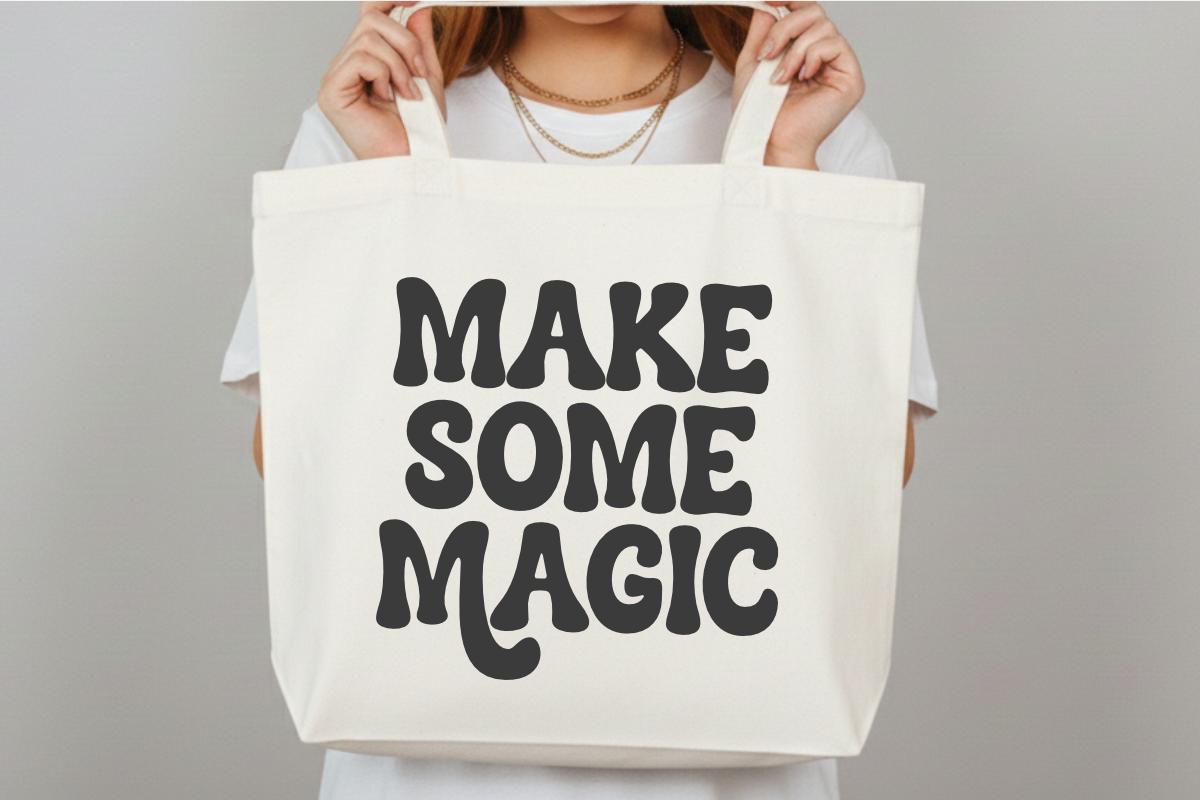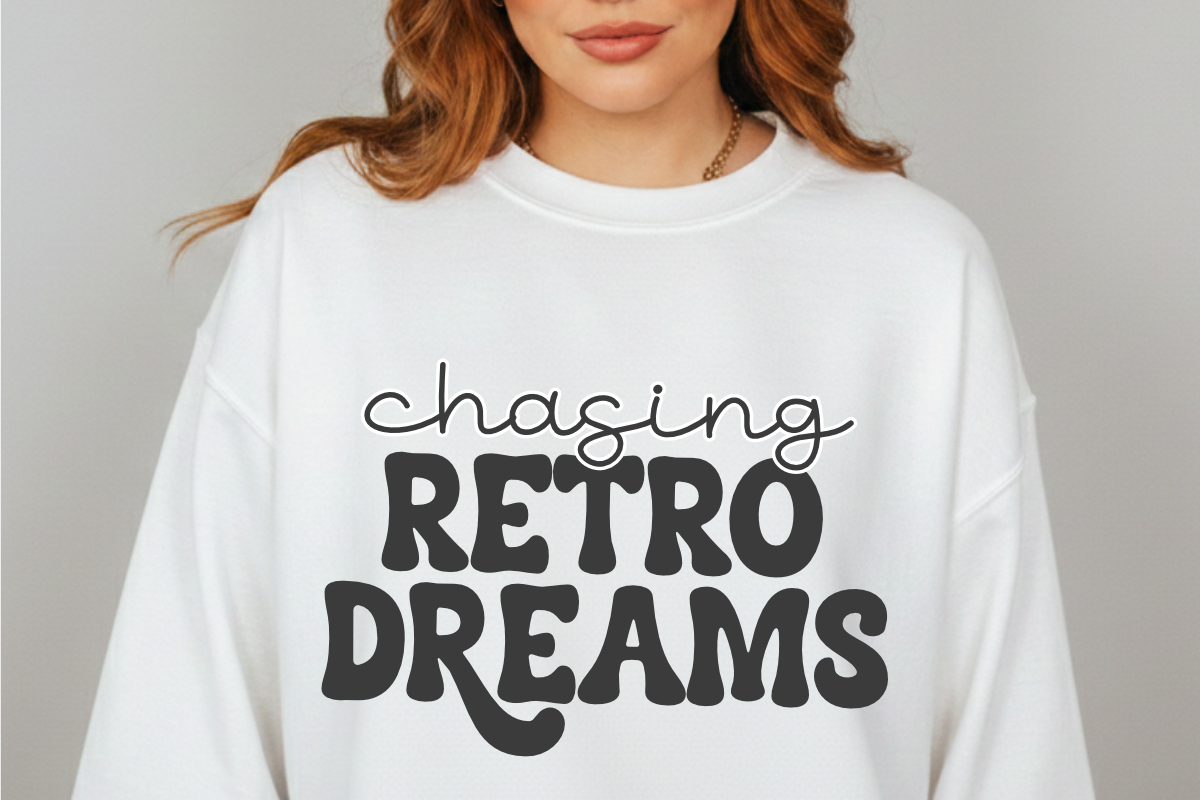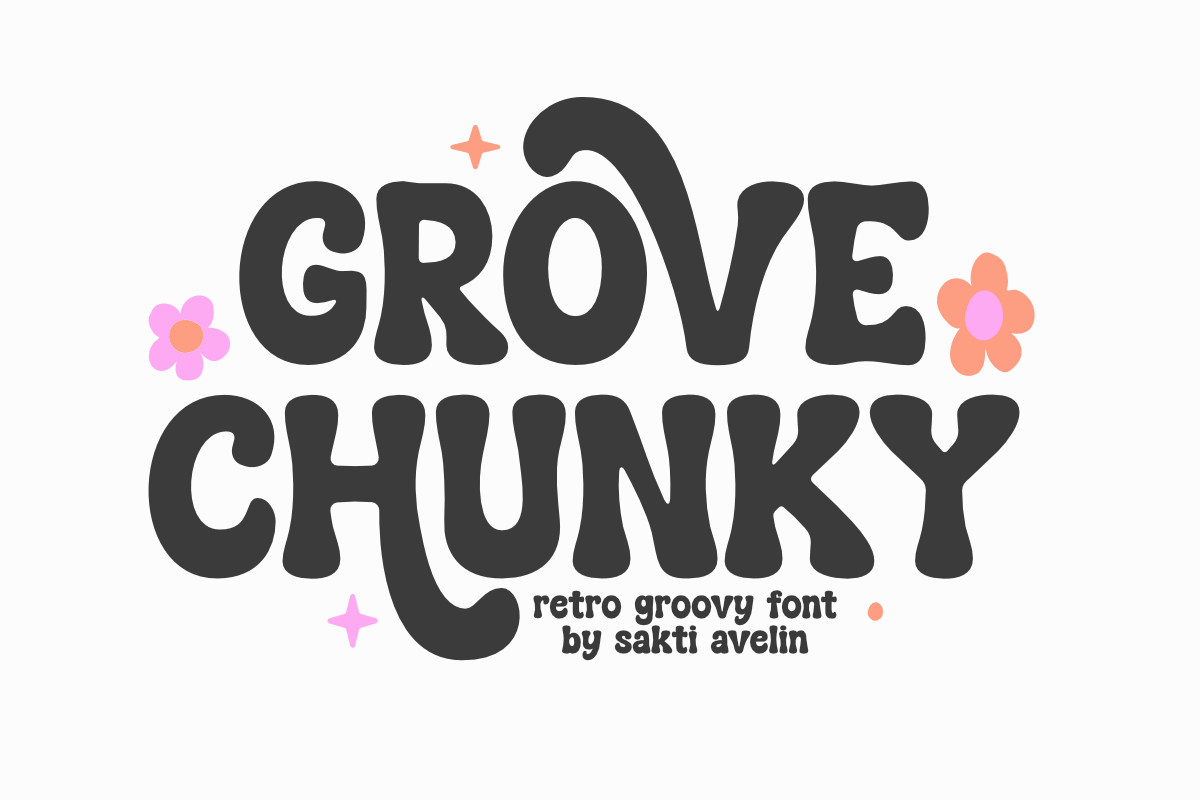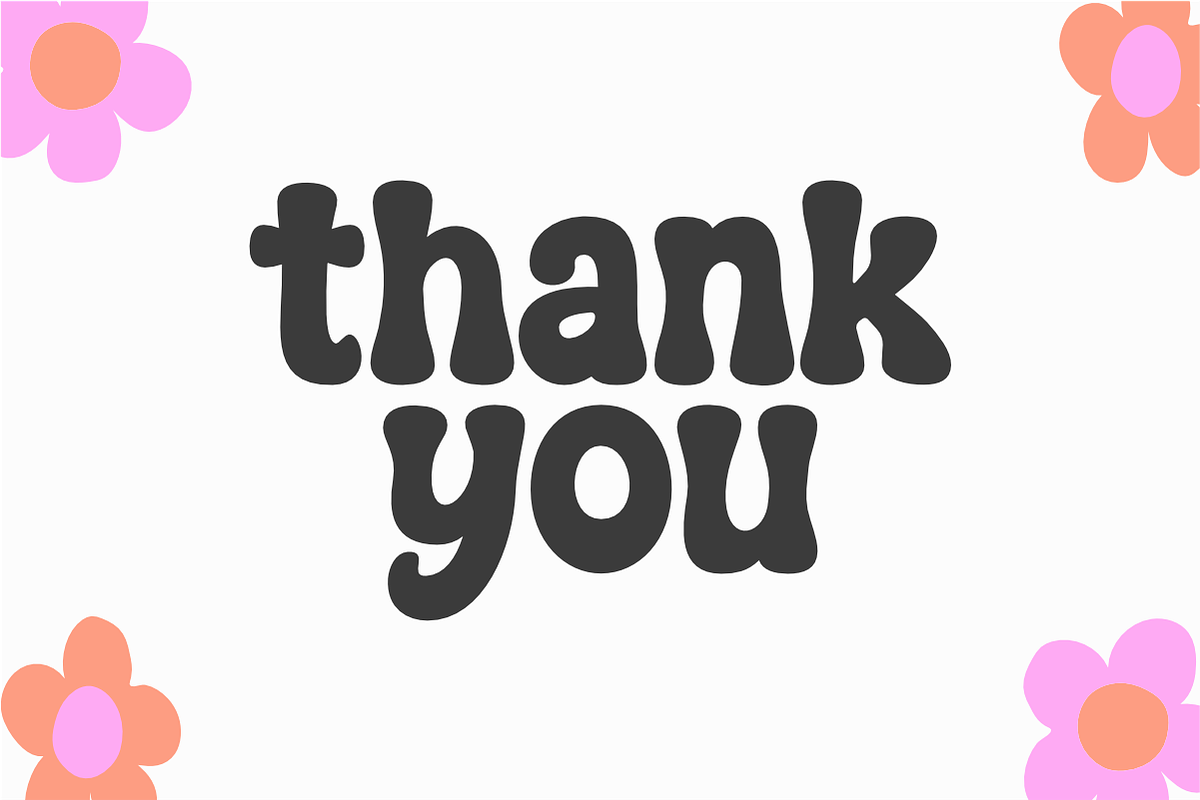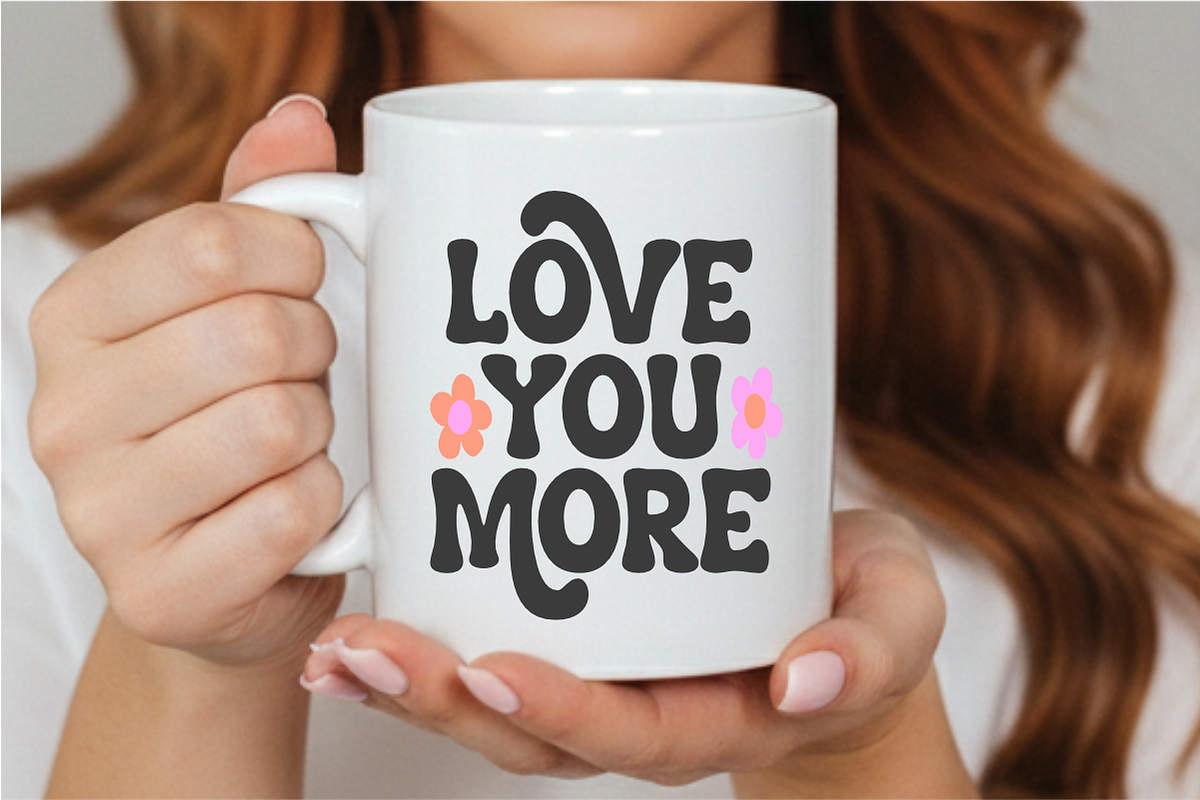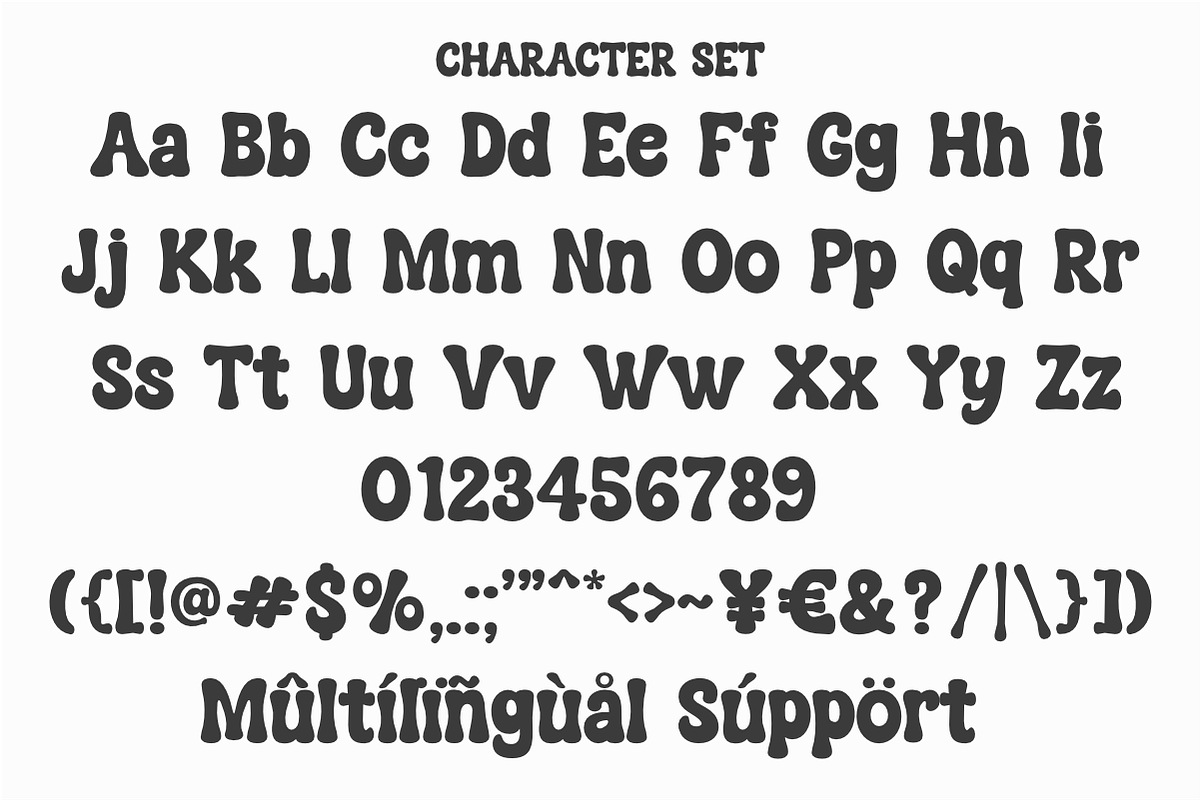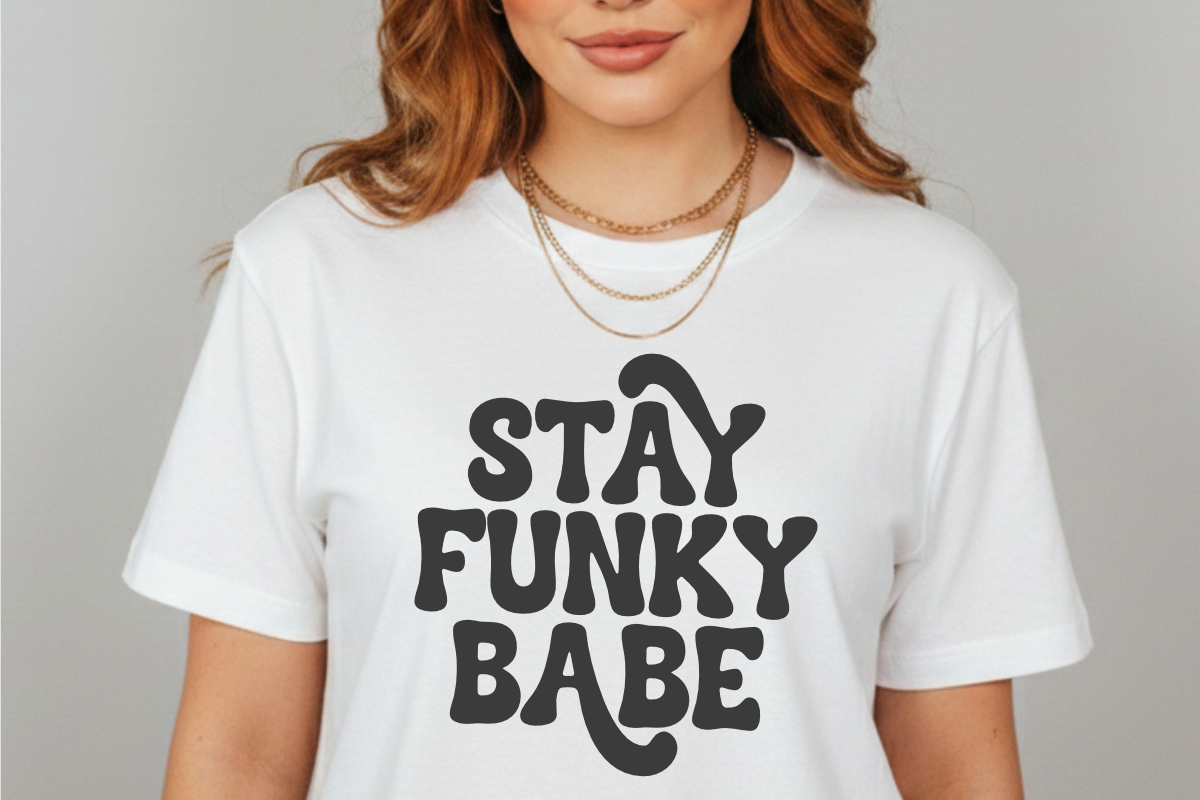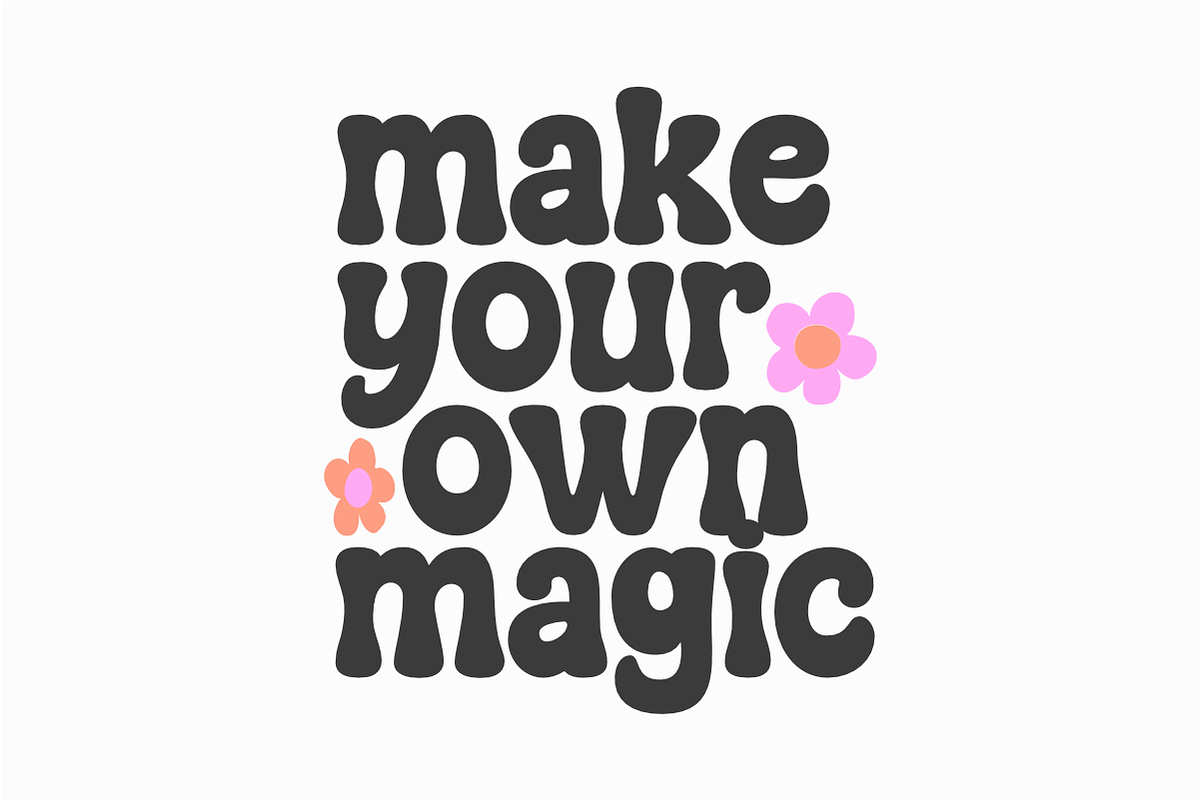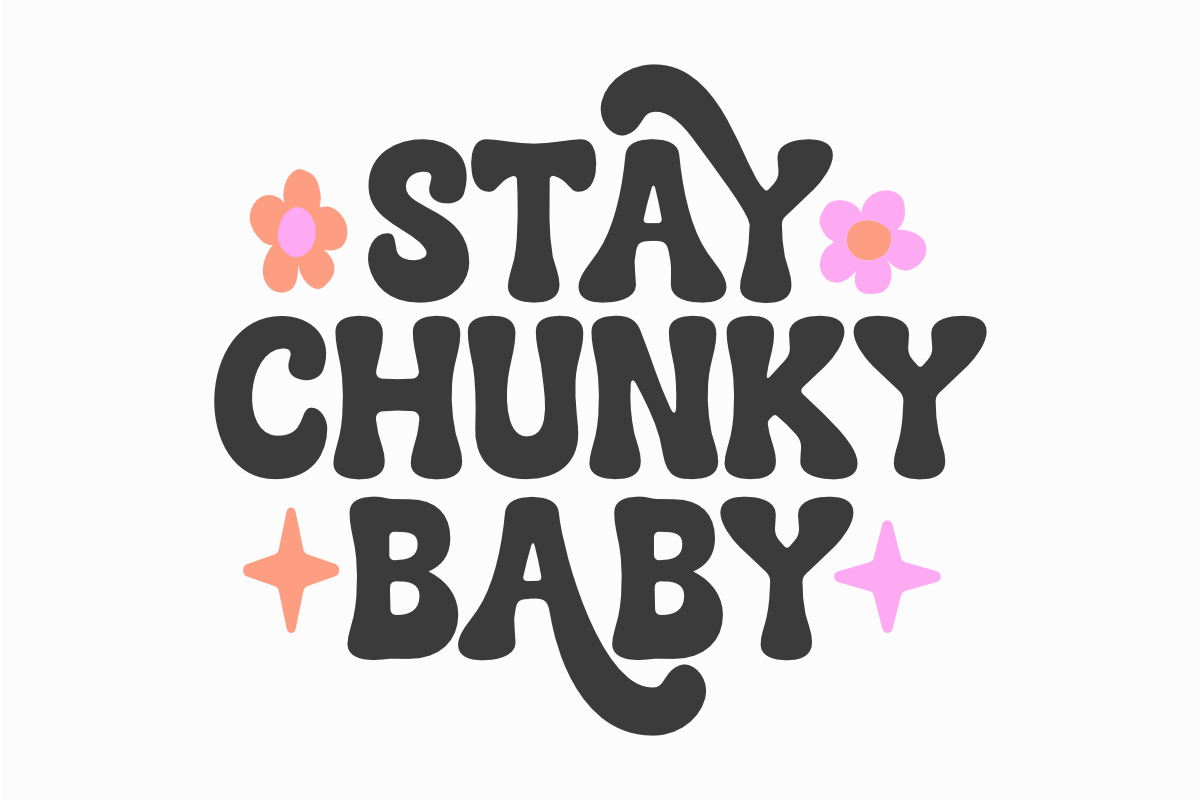
Grove Chunky - Retro Groovy Font
Grove Chunky is a bold and expressive retro groovy font designed to bring back the vibrant spirit of the 1970s. This thick display typeface features playful, wavy letterforms and a fun handcrafted aesthetic, making it an ideal choice for vintage-inspired branding, funky apparel, psychedelic posters, and cheerful social media graphics. Its energetic and nostalgic look is complemented by decorative accents like stars and flowers, ensuring your headlines stand out with a unique, soulful touch. Whether you are designing for a retro shop, festival merchandise, or whimsical stickers, Grove Chunky adds a lovely and creative flair to every project.